Top 25 Football Font: From Classic to Modern
Gather ‘round folks, for we’ll dive into the fascinating world of football font! They’re not just letters, tho. They are the heartbeat of the game, pumping adrenaline into every match and stirring up the passion of fans worldwide. You can also make your own jersey using these collections of fonts. Let’s check it out!
The Complete Collection of Sports and Football Font
Considering the dynamic world of football, we present you with a timeless collection. Complete with new and modern style fonts and nostalgic fonts in it.
Esportiva
The first font is Esportiva, this font leans into the modern side of e-sport events. Your football event will look good with this font.
Budi Mose
Budi Mose is made to be an American football font. Put your beloved team name in this font and watch it elevate your design.
Bugar Sport
Let’s tap into a font fit for your jersey, Bugar Sport is perfect for that purpose. It has a sporty and modern look combined with some fresh vibes in it.
Carlitos
To add more selection for your jersey font football, Carlitos is the design you’ve been looking for. It has the typical look for your jersey number.
Sporticular
Sporticular is a sporty display football font that’s perfect for your merch and promos.
Cyber Display
If you’re holding a sporty e-sport event, Cyber Display is perfect for that. Get this stylish font to hype up your events!
Cyber Sport
You’ve seen this font before in e-sport events. It’s undeniably the nailing font for events or part of your football jersey design.
Rusdy Ibra
If you’re looking for a football font design that people are familiar with, it’s Rusdy Ibra. It looks unassuming for words but, for your number, it’s perfect!
Rogue Dash
This rugged and bold font is your go-to font for American football font. It has 4 styles that you can mix and match.
Virgiano
This one is wild! Virgiano is the sleek and sporty option for your jersey number and design. The sporty stripes can never fail you.
Sportive
Sportive is more robust and modern, it can be your event font, merch, or football club font.
Recollect
A retro font for your nostalgia events, Recollect is sporty enough that you can put it in your retro football trading cards.
Azingdar
Azingdar is a bold script typeface that you can pair to add fluidity to your sports event designs.
Restu Bundah
Restu Bundah is the rugged script font you need for your sporty merch. Don’t sleep on this font to elevate your drip!
Anasite Malela
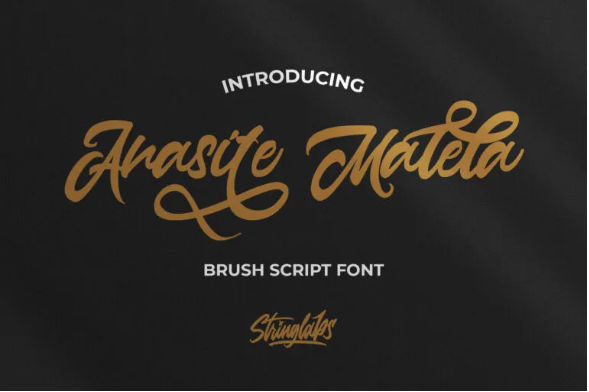
Anasite Malela is a beautiful font for your football font logo or emblem. Maybe not for regular football, but it’s cool for your street football merch.
Brogads
This football font has dynamic and dramatic strokes to capture the emotion in the game and make your design impactful.
The Anthelope
Another bold script font with a spacious and bold style, ideal for stadium announcements and promo materials.
Montages
If you’re looking for a wilder script font, here’s Montages. It gives you bold and charismatic strokes with elegant curves in each letter.
Rayhue
The perfect font to represent legendary athletes! It’s a retro script font that is a no-hitter for athlete’s black-and-white photos.
Anhattan
One of the best pairing for your football font is Anhattan! Manhattan Modern Script has a modern and elegant look with an added sporty style.
Fredam Theory
This font has an expressive personality to pair with your favorite athlete. It has retro vibes too, great for your legendary trading card designs.
Fortunate
If you want a more masculine font for your design, try the Fortunate Hand-drawn Font. The font is rugged and powerful, designed to stand out on jerseys and merch.
Beautiful Vibes
Ready to support your favorite football team? Use Beautiful Vibes Script typeface in your banner. The font is bold and legible, an ideal pair to spread your sporty spirit with it!
Oaklash
Another fresh font to add to your football font collection, the Oaklash Retro Bold Script font. The font is robust and has a retro theme for your support banner, trading card, or merch.
Pixel Sport
Last but not least, Pixel Sport is a sporty font made to complete your jersey design. The sleek and simple design makes it easy to put in various merch and promo materials.